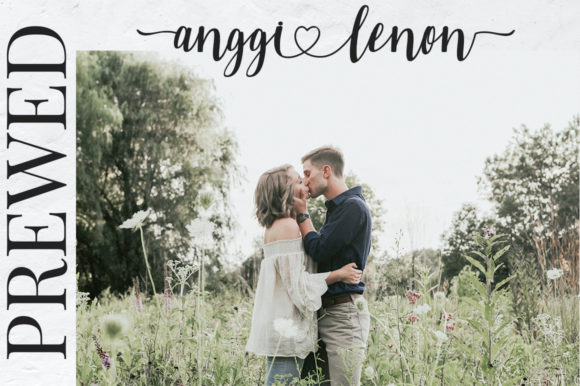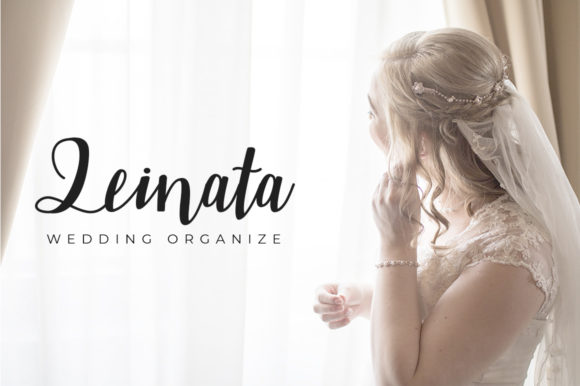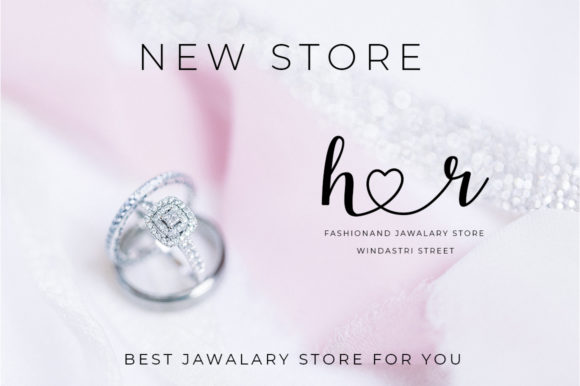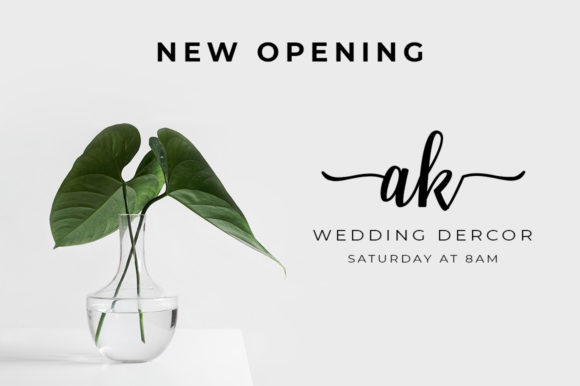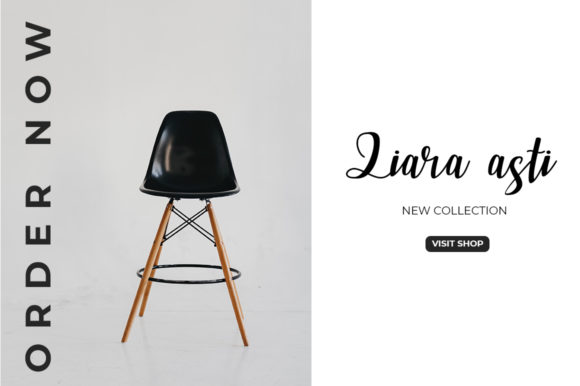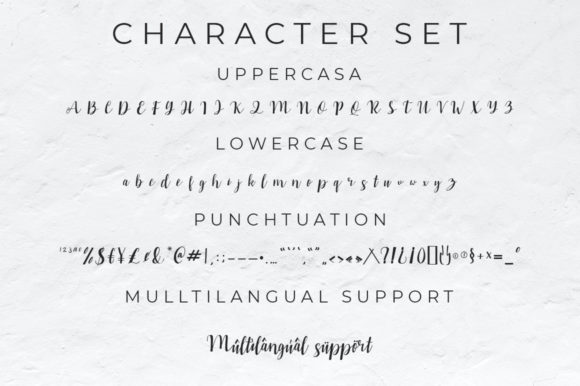
Introduction to Hanna Hanni Font
Have you ever been working on a creative project and felt like something was missing? You’ve poured your heart and soul into the design, but it just needs that extra oomph to bring it to life? For designers, finding the perfect font can be a game-changer. It’s the difference between a good design and a great one.
That’s where the Hanna Hanni Font comes in – a delicate, elegant, and flowing handwritten font that adds a touch of sophistication to any design. With its beautiful and well-balanced characters, it’s the perfect addition to your design resource library. Whether you’re working on a logo, a brochure, or a social media campaign, the Hanna Hanni Font is sure to elevate your creative project to the next level.
Key Features of Hanna Hanni Font
- Unique Hand-Drawn Design: The Hanna Hanni Font features a distinctive hand-drawn design, perfect for adding a personal touch to your creative project.
- Perfect for Creative Projects: The Hanna Hanni Font’s unique design and high-quality rendering make it ideal for use in creative projects, such as branding, advertising, and editorial design.
Honest Review: Hanna Hanni Font
I recently had the chance to work with the Hanna Hanni Font, and I must say it’s been a pleasant experience. This font is a great design resource for anyone looking to add a touch of whimsy to their creative project.
- What works well: ✨ The high quality of the font is evident in its crisp, clean lines and well-defined characters.
- What works well: ✨ The font’s playful, handwritten feel makes it perfect for titles, headings, and other display text.
However, there are a few limitations to keep in mind: ⚠️ The font may not be suitable for large blocks of text, as it can be quite difficult to read in long paragraphs.
Overall, I’m impressed with the Hanna Hanni Font. Its unique style and high quality make it a great addition to any designer’s toolkit. While it may not be perfect for every project, it’s definitely worth considering for your next creative project.
Hanna Hanni Font
Hanna Hanni Font is suitable for a wide range of creative projects, including:
- Documents